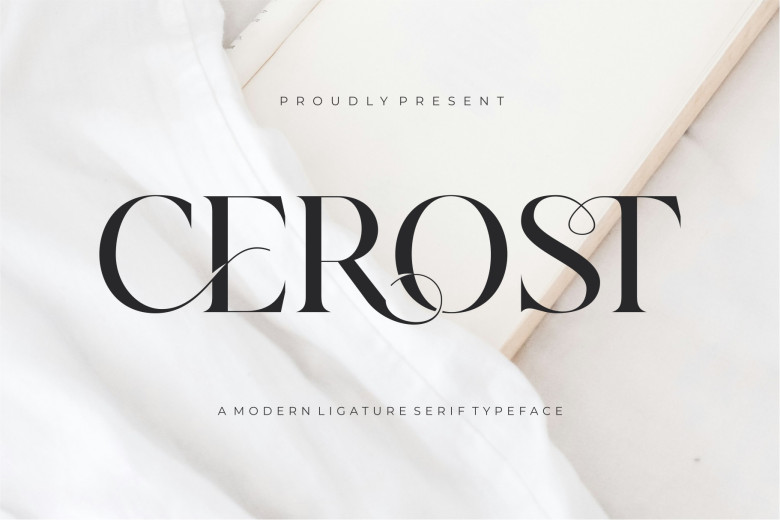
Cerost Font
Cerost is a serif ligature font inspired by its minimalist logo of the same name, perfect for creating templates, brochures videos advertisements branding logos invitation designs layouts exquisite crafting aesthetic design and much more.
Cerost Serif Font